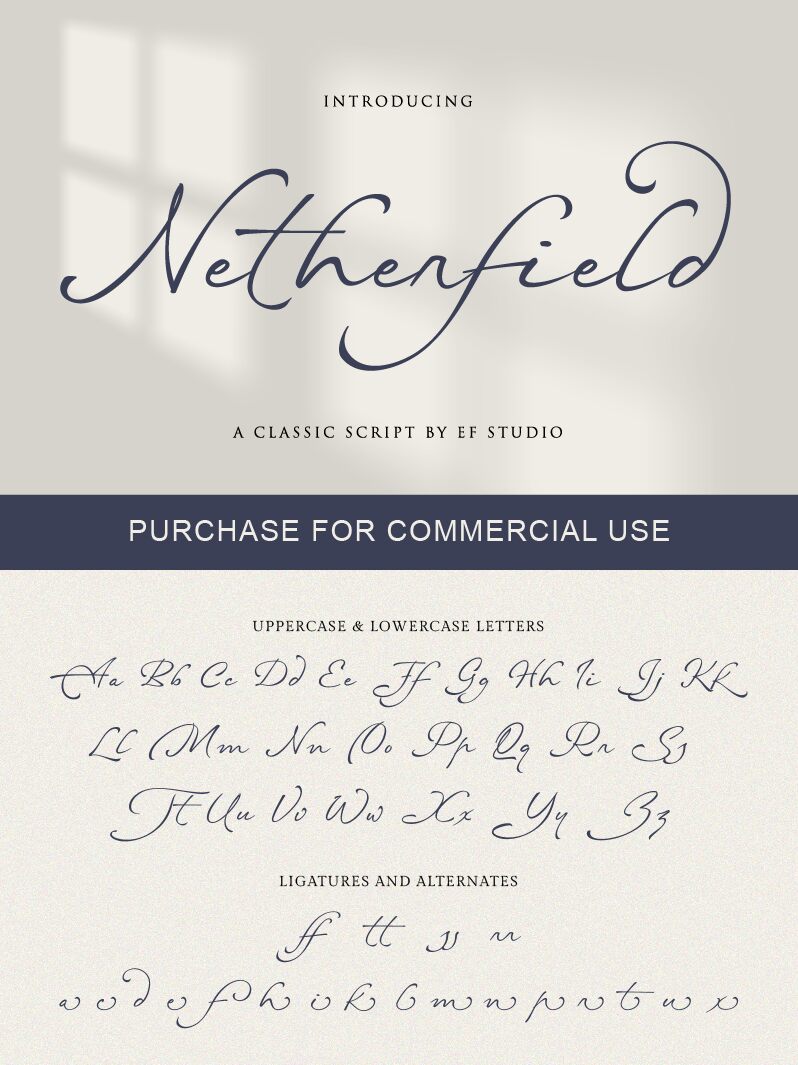
Netherfield - Personal Use
Netherfield, designed by Ef Studio, is a stunning vintage calligraphy font that is sure to add a touch of elegance to any project. With its extra-light weight, this font exudes sophistication and refinement, making it perfect for wedding invitations, high-end branding projects or any design that requires a touch of class. The delicate curves and distinctive letterforms of Netherfield are sure to make your text stand out while maintaining readability. Whether you're designing an upscale logo or creating beautiful stationery, Netherfield is the perfect font choice for any project that requires a timeless and elegant feel.
Features : Ligature & Alternate